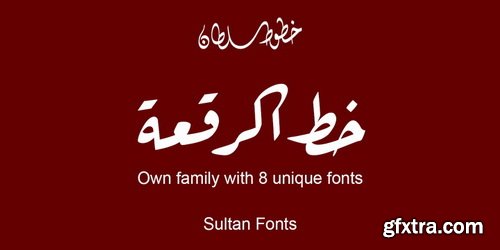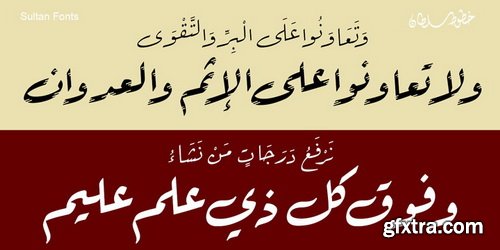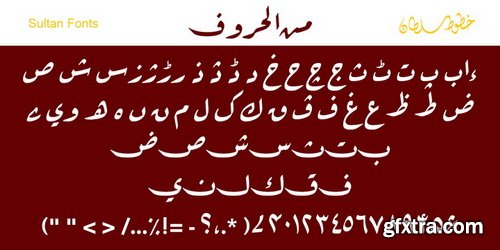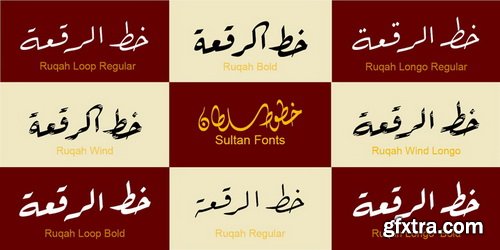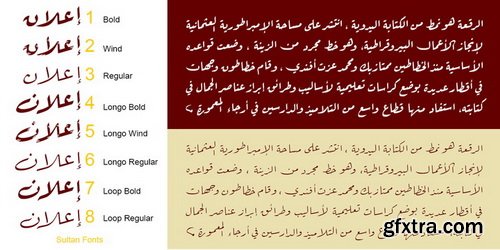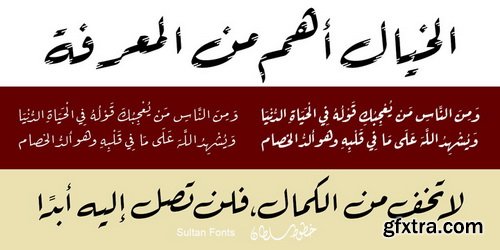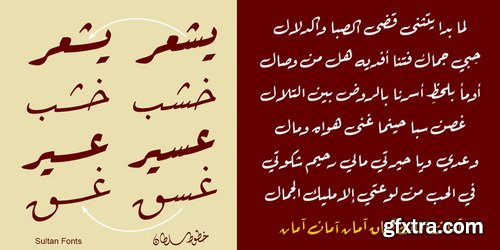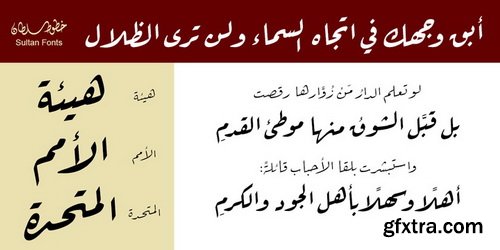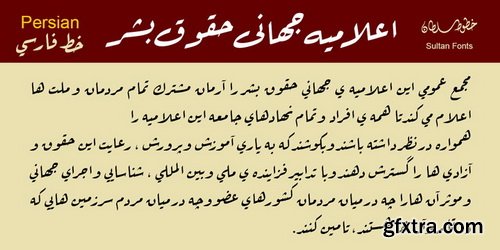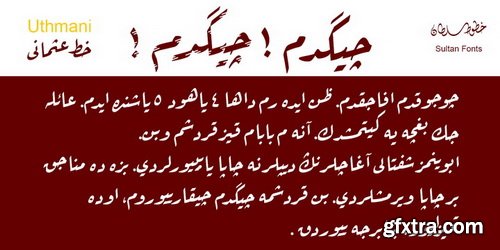
Sultan Ruqah Arabic Font Family
Sultan Ruqah is a attracting font, Designed by Sultan Maqtari. This is one font of the Sultan Fonts families that supports a variety of scripts including Arabic, Persian, Urdu, Uthmani, and Kurdish. The Sultan Ruqah has its own family with 8 unique fonts varying in weights and width. All characters, punctuation and styling have all been improved keeping in mind the required feel and beauty of the font for a wide corporate use, The 8 fonts include lots of styles.